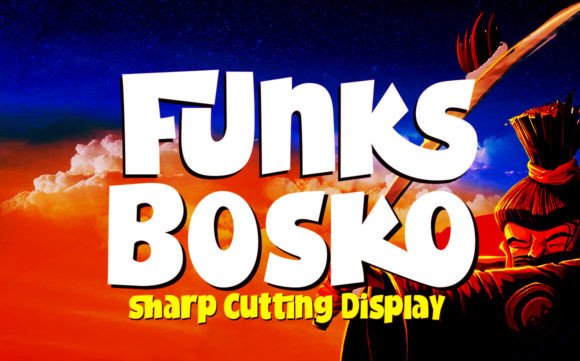
Unleash your creativity and make a lasting impression with Funks Bosko, the captivating display font that's perfect for crafting, digital designing, presentations, greeting cards, and more. Its sharp, bold lines and unique character will add a touch of boldness and originality to any project.
With Funks Bosko, you can turn your ideas into stunning visuals. Its strong, confident strokes command attention, making it the perfect choice for app titles, logos, headlines, posters, and social media graphics. Whether you're a seasoned designer or just starting, Funks Bosko is easy to use and will help you create designs that pop.
Go beyond ordinary fonts and embrace the extraordinary with Funks Bosko. Let your imagination run wild and create designs that leave an unforgettable mark. From eye-catching marketing materials to personalized invitations, Funks Bosko will help you make a statement and stand out from the crowd.
Step into the world of Funks Bosko and elevate your designs to new heights. With its versatility and charm, this font is a must-have for any creative toolbox. Experience the joy of crafting designs that resonate with your audience and leave a lasting impact.